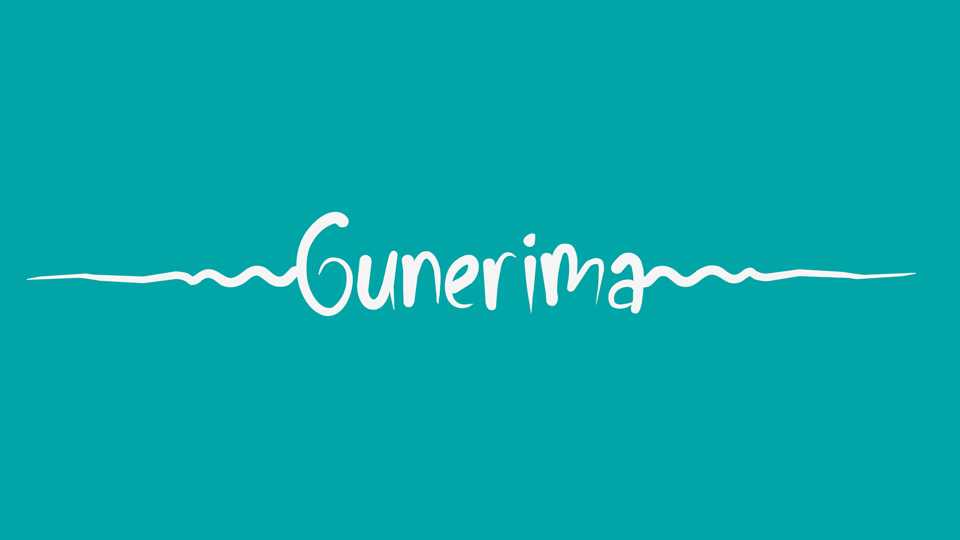
Gunerima Font › Fontesk – Download Grátis
Download Gunerima font, a simple hand-painted brush typeface that adds a touch of effortless charm and artistic elegance to your designs. Gunerima font features a relaxed and natural design, with each letter exuding a sense of casual grace.